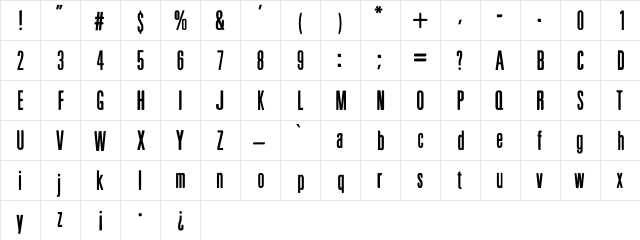
FurySolid Regular
Design Context for FurySolid Typeface
FurySolid offers clean, dependable letterforms without strong stylistic allegiance, making it a practical choice for designers who need flexibility.
Pro Tip: Use FurySolid in both headline and body roles to test its range before committing to a single application.